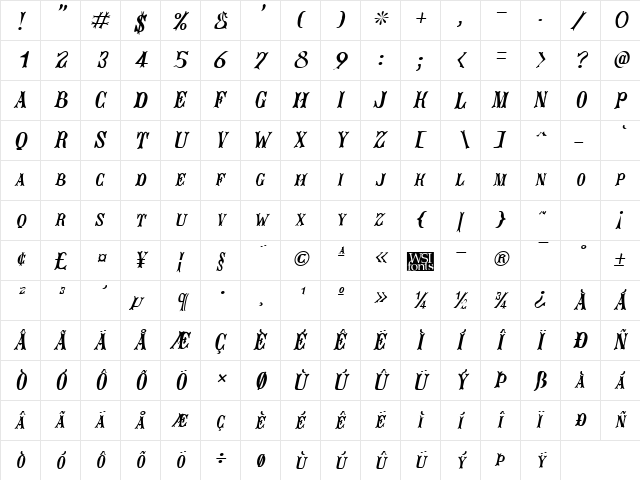
JacquesRoughcut Italic
Design Context for JacquesRoughcut Typeface
JacquesRoughcut trades polish for personality, using distressed and eroded forms to bring grit and attitude to creative work. The slanted form adds forward momentum and visual energy.
Suited to punk-influenced zines, underground music branding, streetwear, and raw, anti-corporate design.
Pro Tip: Pair JacquesRoughcut with intentionally raw or lo-fi design elements. Fighting against it with overly polished surroundings will undermine its personality.